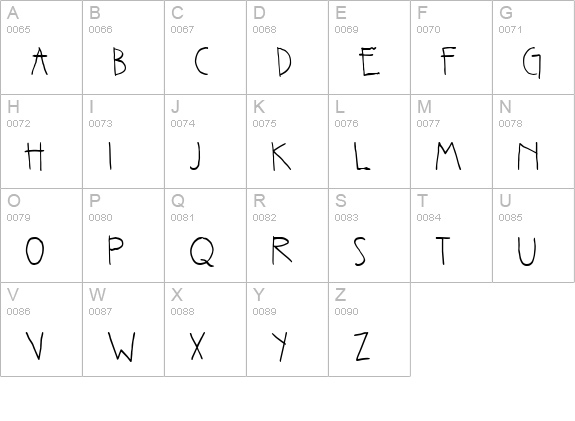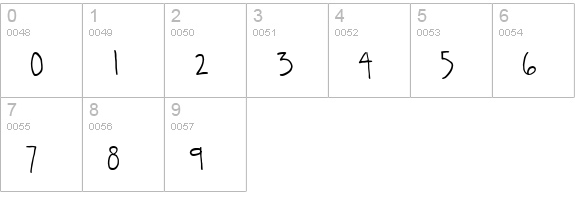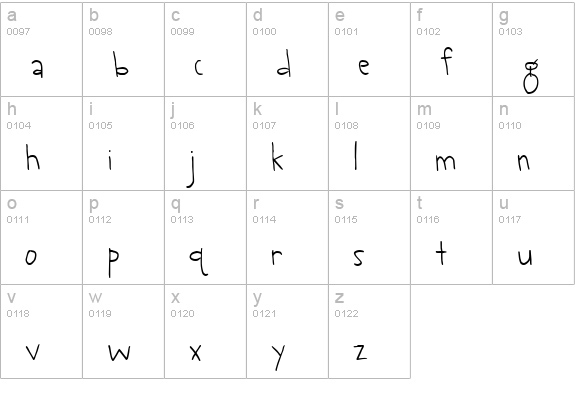
CK Tall Type Font Details
Introducing CK Tall Type font, a modern and stylish typeface that adds a touch of elegance to any design project. With its tall and slender letterforms, this font exudes sophistication and class. Perfect for titles, headlines, and branding materials, CK Tall Type is sure to make a statement. What sets CK Tall Type apart is not only its sleek design but also its accessibility - it is completely free to download at FontsMarket.com. Now you can elevate your designs with this premium font without breaking the bank. Whether you're working on a poster, logo, or website, CK Tall Type is the perfect choice to add a touch of refinement to your project. Download CK Tall Type today and elevate your design game with this versatile and eye-catching font.